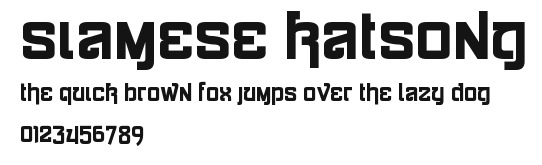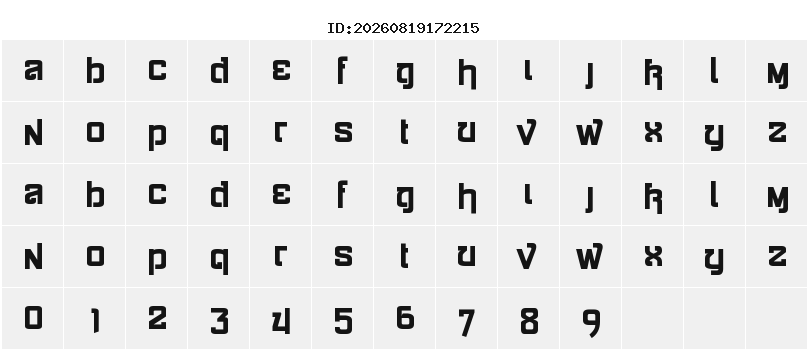
• Font Name: Siamese Katsong
Siamese Katsong.ttf is a modern, elegant sans-serif font designed for ultimate readability and visual harmony. Perfect for branding, headlines, web design, and print materials.